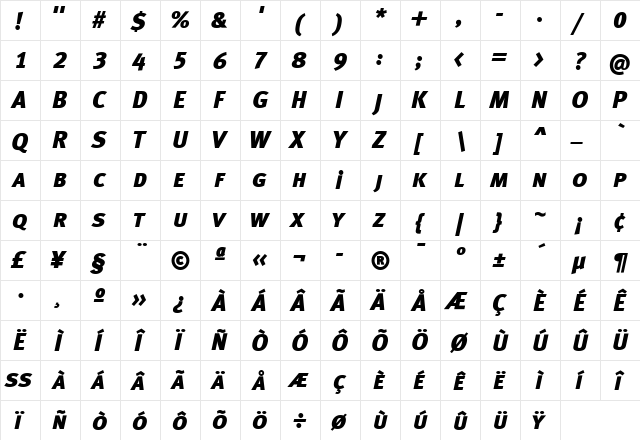
MetaBlackTurkLF Medium
| Foundry | Erik Spiekermann, . Published by FontShop International for FontFont library. Meta is a trademark of FSI, Fonts and Software GmbH. Created by Erik Spiekermann, Ole Schaefer, Dmitri Sorokin. Vendor URL:http://www.fontfont.de |
Design Context for MetaBlackTurkLF Typeface
MetaBlackTurkLF is a composed and adaptable typeface that performs quietly and consistently across a wide range of design contexts.